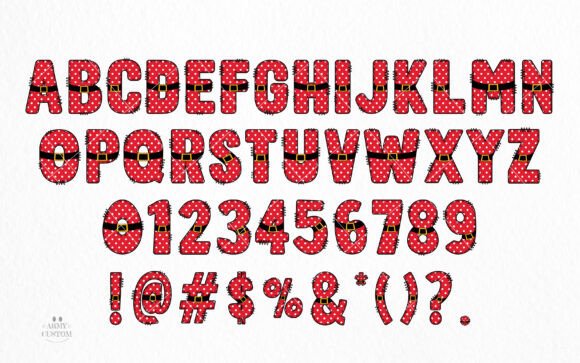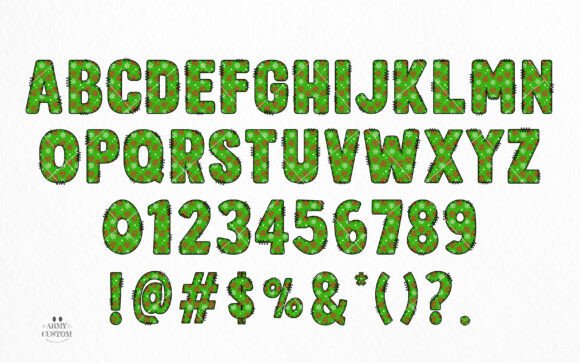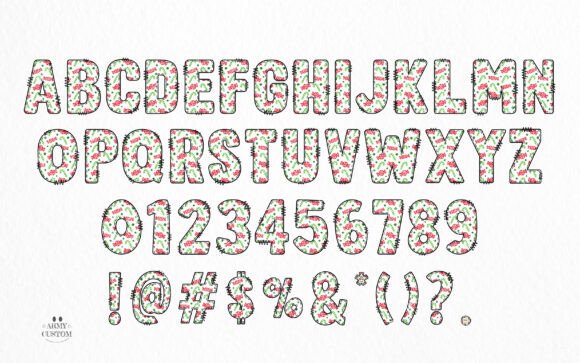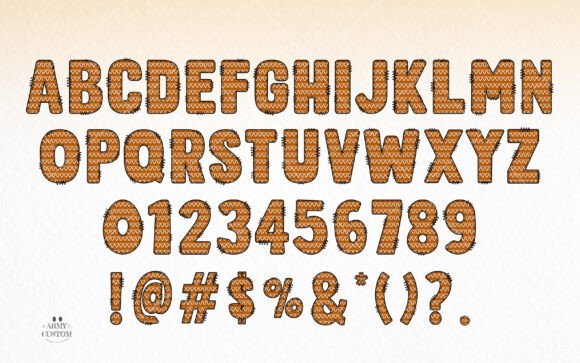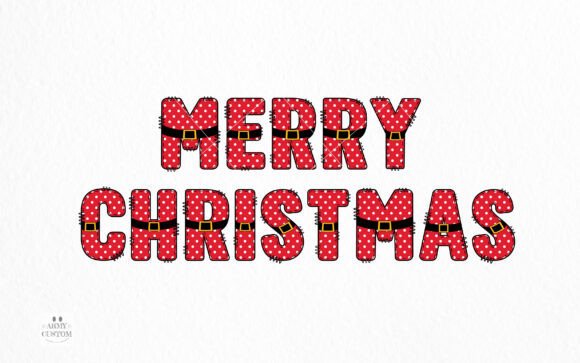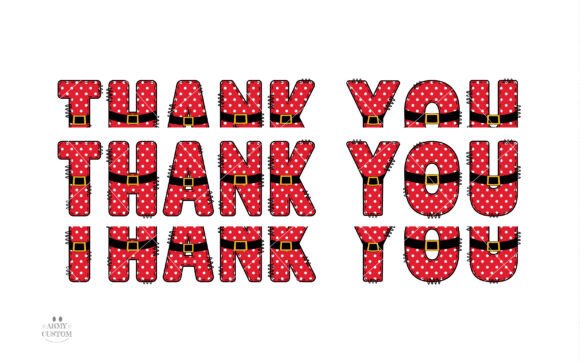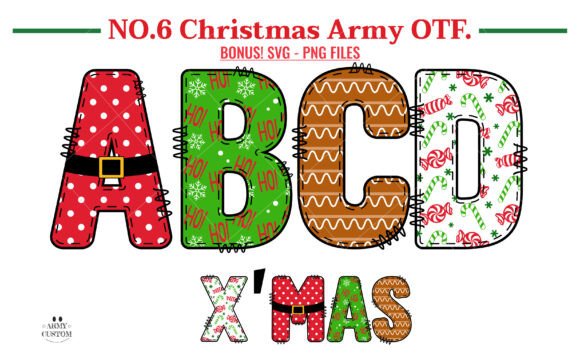
Introducing the Christmas Army Bundle Font: A Whimsical Addition to Your Holiday Design Toolkit
The holiday season is upon us, and with it comes the need for festive and fun designs that capture the spirit of Christmas. Whether you’re a designer, crafter, or DIY enthusiast, having the right font can make all the difference in creating vibrant and engaging holiday projects. This is where the Christmas Army Bundle Font comes in – a delightful and playful font that’s sure to elevate your festive creations.
A Font that Embodies the Spirit of Christmas
The Christmas Army Bundle Font is imbued with a sense of whimsy, making it a perfect addition to your holiday design toolkit. Its jovial style is reminiscent of the joy and merriment of the holiday season, making it an ideal choice for creating vibrant holiday decorations, greeting cards, or adding a dash of festivity to any design project. With this font, every letter spelled out becomes a joyous celebration, inspired by the adorable antics of Santa’s helpers.
Key Features of the Christmas Army Bundle Font
- Whimsical Design: The Christmas Army Bundle Font boasts a playful and elfish design that’s sure to bring a smile to anyone’s face.
Using the Christmas Army Bundle Font in Your Projects
The Christmas Army Bundle Font is perfect for a variety of holiday projects, including:
- Holiday Decorations: Use the font to create festive decorations like garlands, banners, and signs.
- Greeting Cards: Add a personal touch to your holiday greeting cards with this whimsical font.
- DIY Crafts: Use the font to create custom vinyl decals, iron-on designs, or paper crafts.
- Digital Designs: Incorporate the font into your digital designs, such as social media graphics, blog posts, or email newsletters.
Tips for Using the Christmas Army Bundle Font
To get the most out of the Christmas Army Bundle Font, here are a few tips:
- Experiment with Colors: Try pairing the font with different colors to create unique and eye-catching designs.
- Mix and Match Fonts: Combine the Christmas Army Bundle Font with other fonts to create interesting and dynamic designs.
- Use it in Combination with Images: Pair the font with festive images, such as holly, snowflakes, or Santa hats, to create engaging designs.